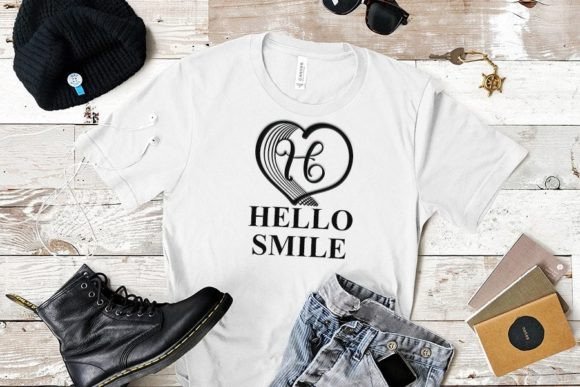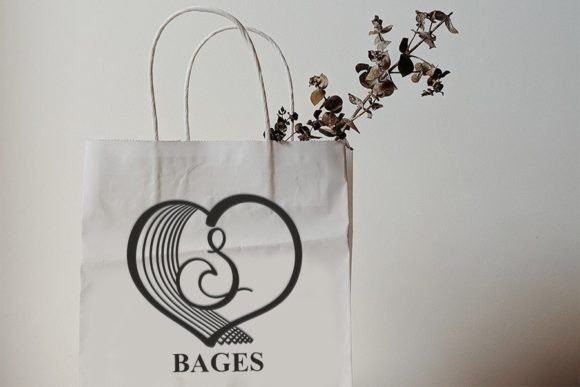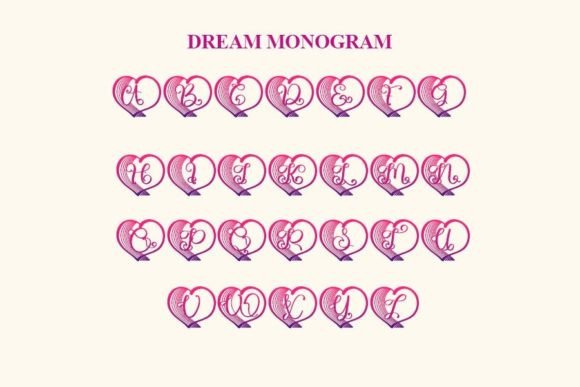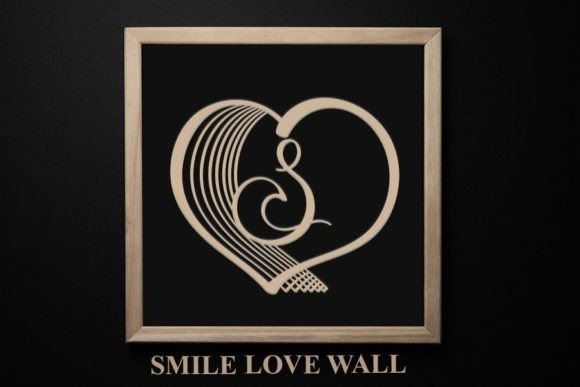
The Dream Monogram Font: A Designer’s New Best Friend
Have you ever been working on a design project, and suddenly, you’re stuck on finding the perfect font? I recall a particularly frustrating experience while designing a wedding invitation suite. My client wanted something elegant, modern, and uniquely personalized. After hours of scouring through font libraries, I stumbled upon the Dream Monogram Font. It was love at first sight! ✨
An Honest Review of Dream Monogram Font
- ✨ Exquisite Design: Dream Monogram is indeed a beautiful and refined monogram font. Its classy and modern vibe fits perfectly with a wide range of design projects, from logos and branding to invitations and social media posts.
- ✅ PUA Encoding: This font is PUA encoded, making it incredibly easy to access all the amazing glyphs and ligatures. No more tedious searching for the perfect character!
- 💻 Versatility: Whether you’re working on a professional project or a personal craft, Dream Monogram Font adapts seamlessly to various design needs.
While Dream Monogram Font is exceptional, there are a few minor considerations:
- 🤔 Learning Curve: For those new to using OpenType features or glyphs, there might be a slight learning curve. However, this is a great opportunity to explore and get creative with font capabilities!
The Story Behind Dream Monogram
While the actual designer of Dream Monogram remains a mystery, it’s easy to imagine the inspiration behind such a font. Perhaps a designer, passionate about typography and elegance, sought to create a font that would bring a touch of sophistication to any project. With an eye for detail and a love for modern design, they crafted Dream Monogram to be both versatile and stunning.